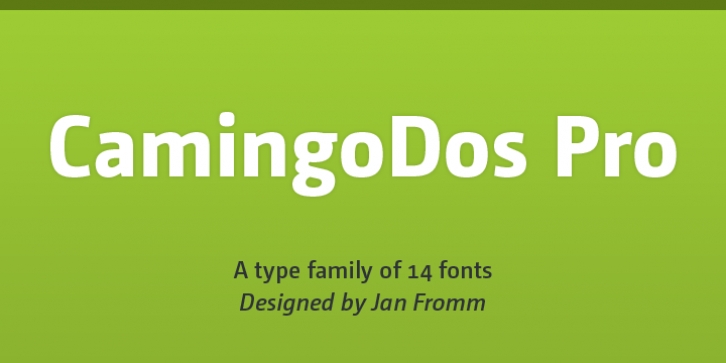
CamingoDos Pro is provided with tight shapes and elliptic roundings. With the aspect of legibility on mind these attributes were applied carefully. Along with a subtle contrast between thick and thin strokes CamingoDos has a strong, humanistic appearance. It comes in a wide range of seven weights from ExtraLight to Black which makes it perfectly suitable for editorial and corporate design.
CamingoDos Pro is the updated and partially re-drawn version of the original Camingo type family. Some design decisions were reconsidered and about 150 glyphs were added to the character set.
Furthermore it now has two additional related families: CamingoDos Pro SemiCondensed and CamingoDos Pro Condensed.